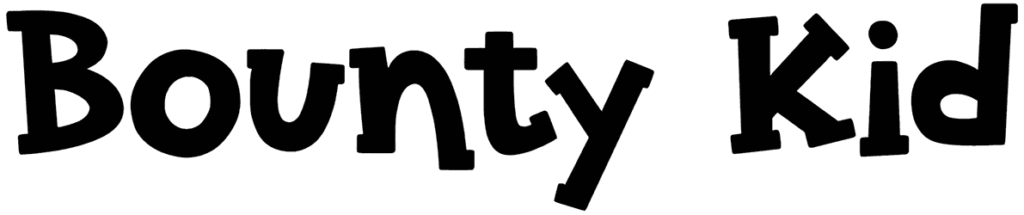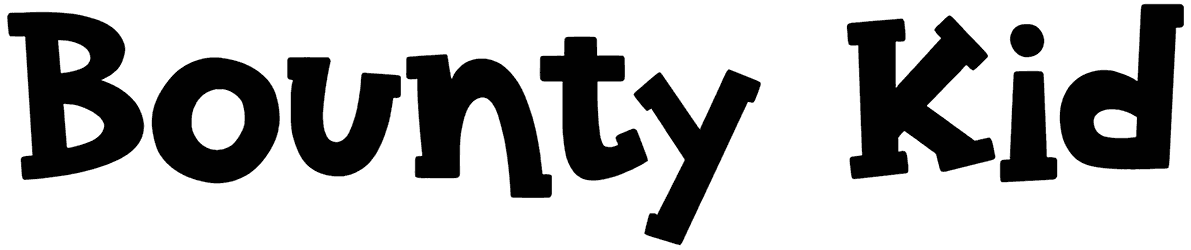
Bounty Kid Font
Bounty Kid, a cute cartoon font that can induce an aesthetic result, would give your kids’ creations a lovable and whimsical air. Cartoons, flyers, toy packaging, and posters are all fine areas to use this cartoon font, supporting all the needed characters.